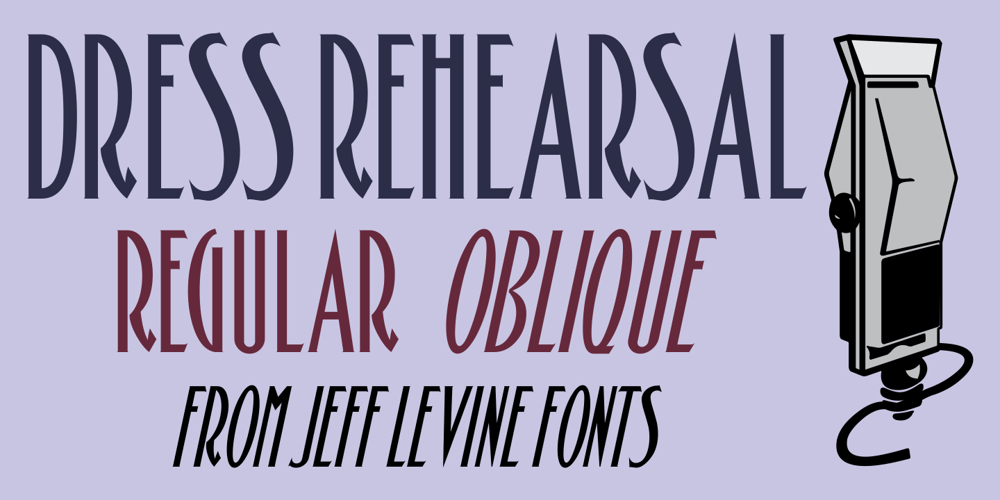
Dress Rehearsal JNL Font Family was designed by Jeff Levine and published by Jeff Levine. Dress Rehearsal JNL contains 2 styles and family package options. In a career spanning the early 1900s through 1940, George M. Cohan wrote and produced over 50 plays, 300 songs and was also an actor, singer and dancer.Many of his works honored his Irish roots, and the cover of one piece of sheet music called “The Irish American” (1905) had its title hand lettered in a condensed Art Nouveau type design with tiny spurred serifs.This is now available digitally as Dress Rehearsal JNL, in both regular and oblique versions.